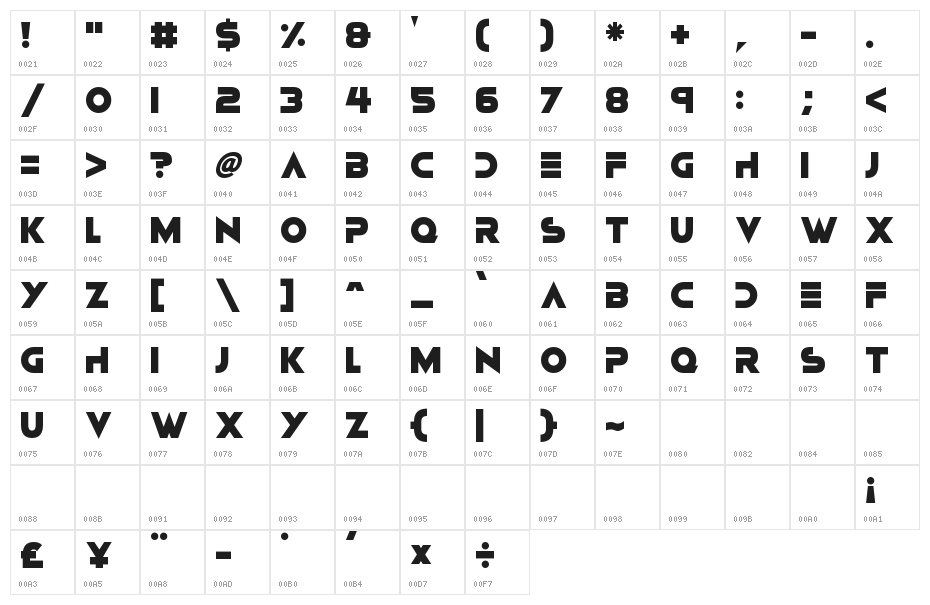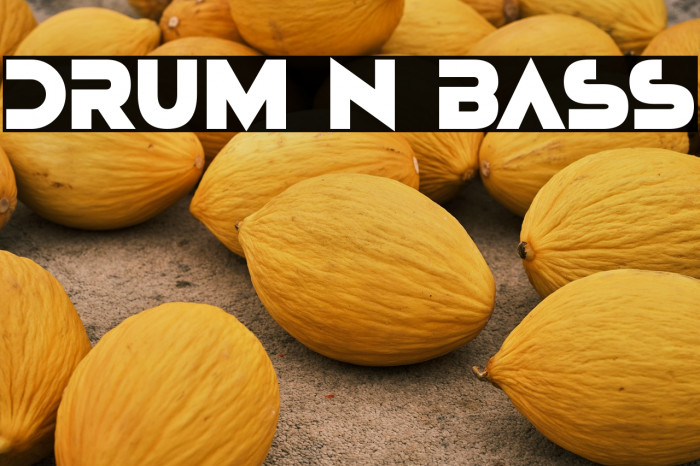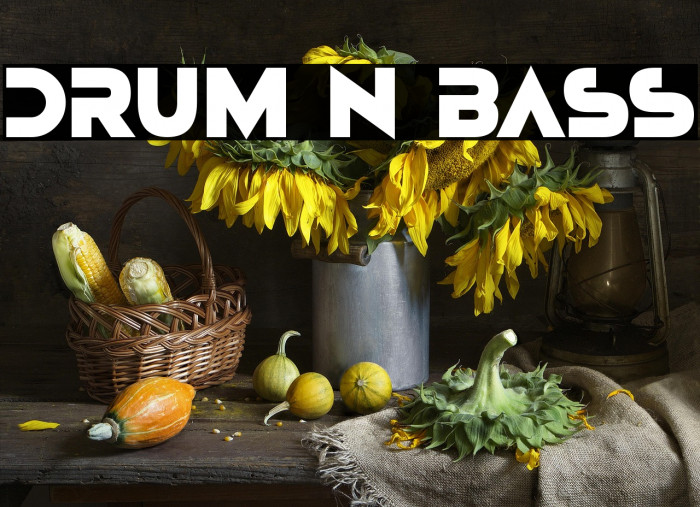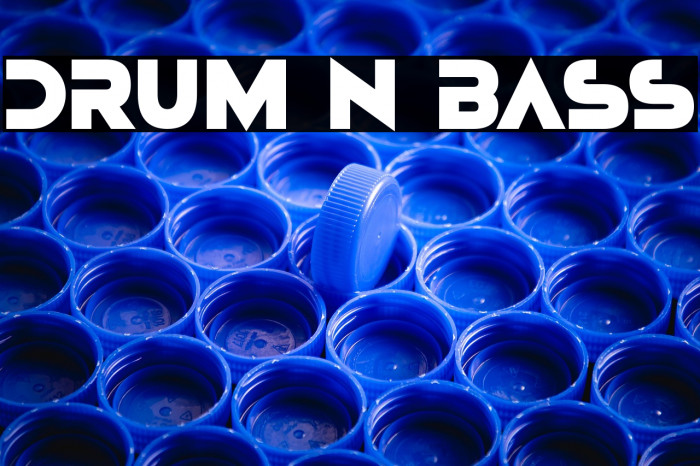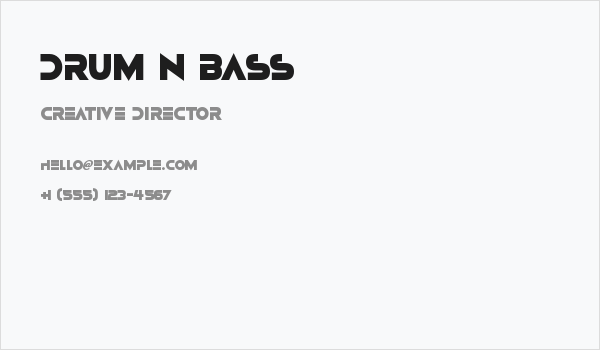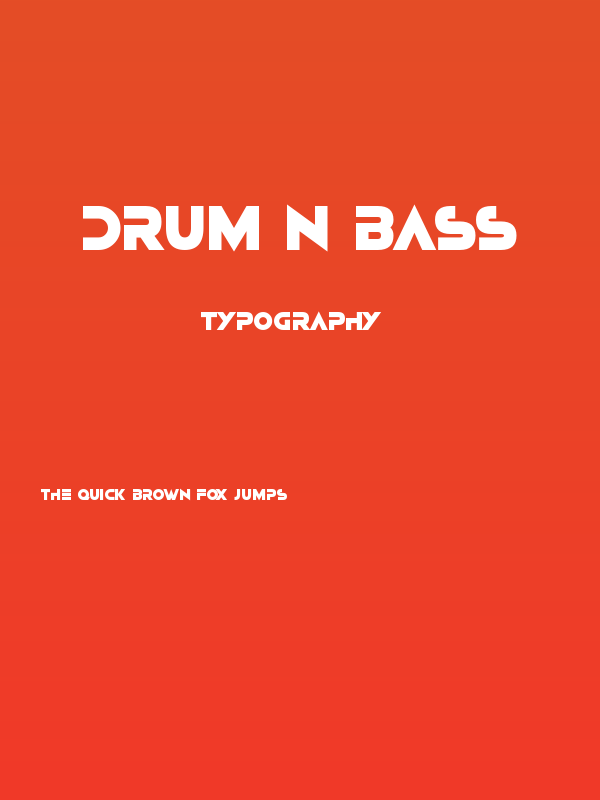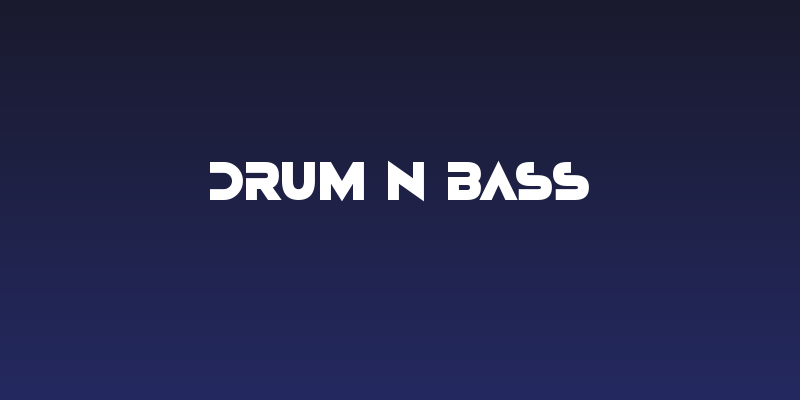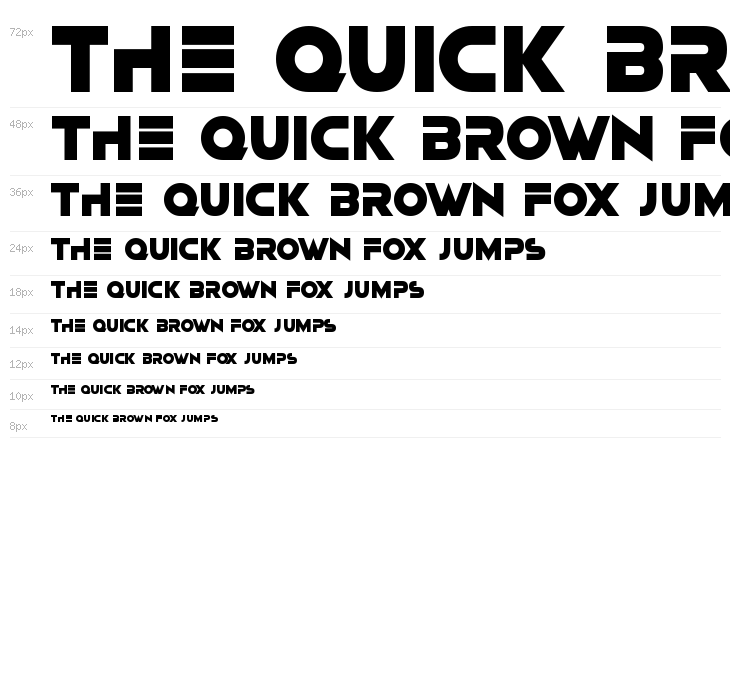
Drum N Bass Font
Drum N Bass Description
This font features a bold and geometric design with a futuristic flair. The characters are constructed with thick, uniform strokes that create a strong visual impact. The angular and blocky shapes give it a modern and edgy appearance, making it suitable for attention-grabbing headlines and logos. The uppercase and lowercase letters maintain a consistent style, while the numerals and special characters are designed to complement the overall aesthetic. The font's distinct style is ideal for projects that require a contemporary and dynamic look.
| Proposed Projects | Ideal for music album covers, event posters, video game titles, and technology branding. |